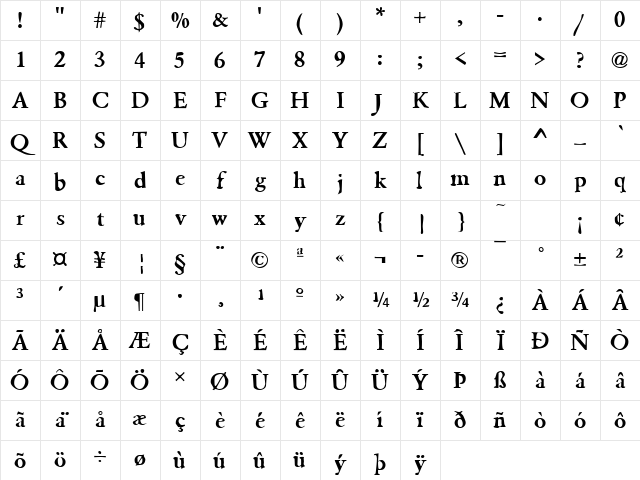
Complete Dirty22 Becker Regular glyph index. Displaying only characters natively supported by Dirty22 Becker Regular font.
Dirty22 Becker is a composed and adaptable typeface that performs quietly and consistently across a wide range of design contexts.